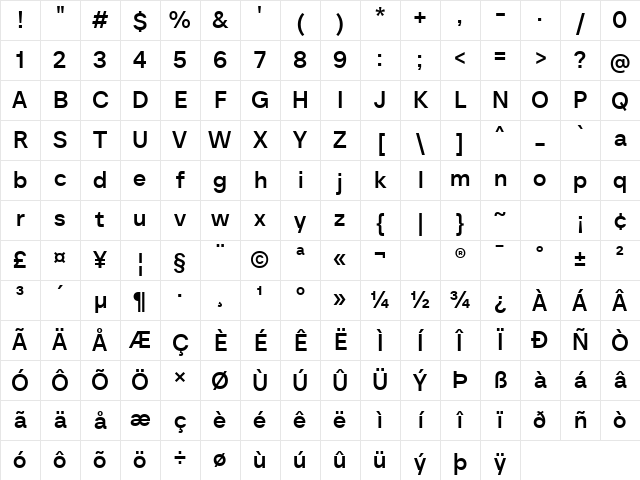
TT Neoris Trial Medium Free Font
TT Neoris Trial Medium
Designer: Designed by Antonina Zhulkova, Marina Khodak, Toma Streltsova, Yulia Gonina, Nadyr Rakhimov, Anastasia Pogorelova, Lada Sobchenko. Technical designers Ivan Gladkikh, Yuriy Nako, Victor Rubenko, Anastasia Vrublevskaya.
Design Context for TT Neoris Trial
TT Neoris Trial is a composed and adaptable typeface that performs quietly and consistently across a wide range of design contexts.